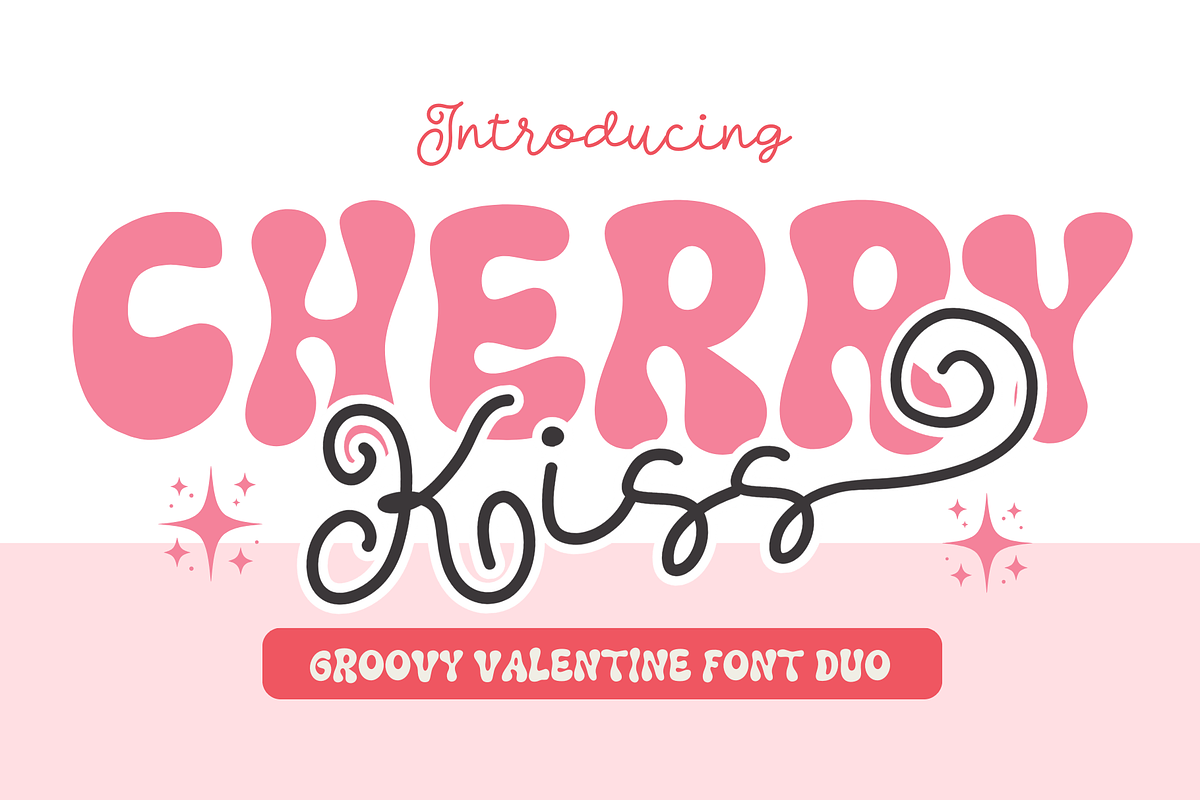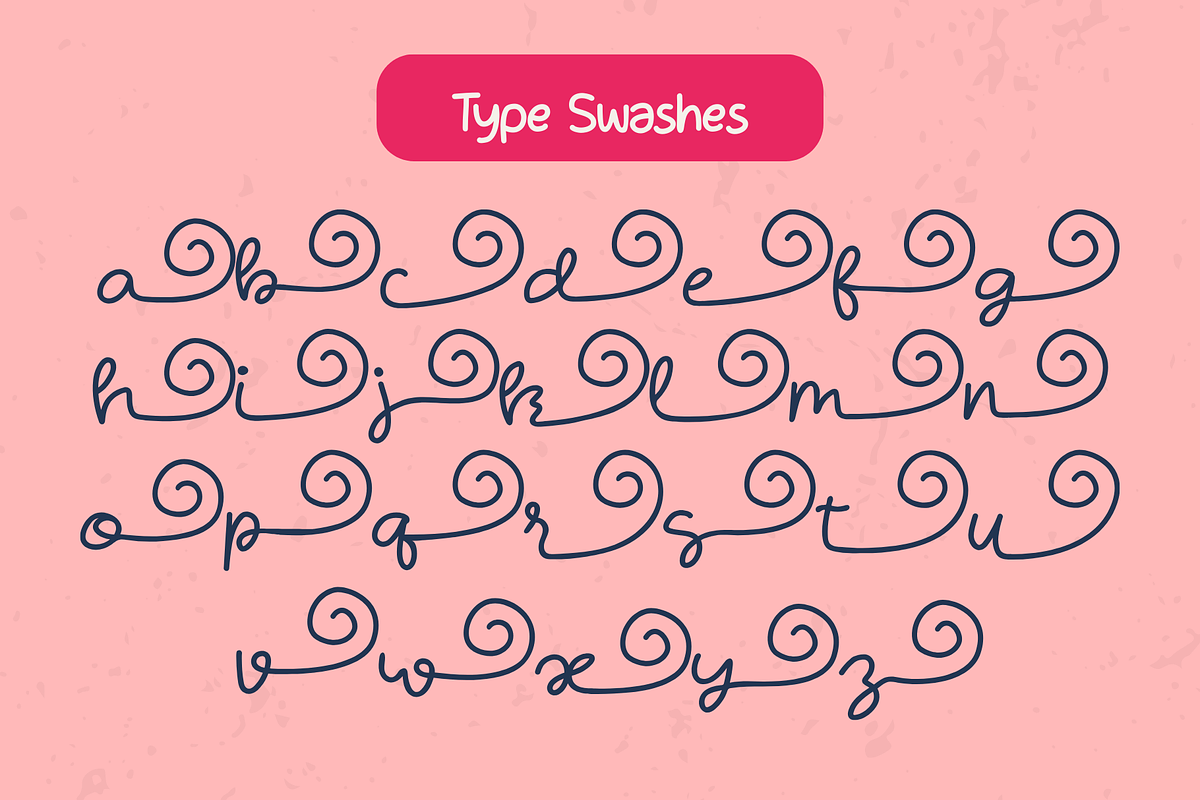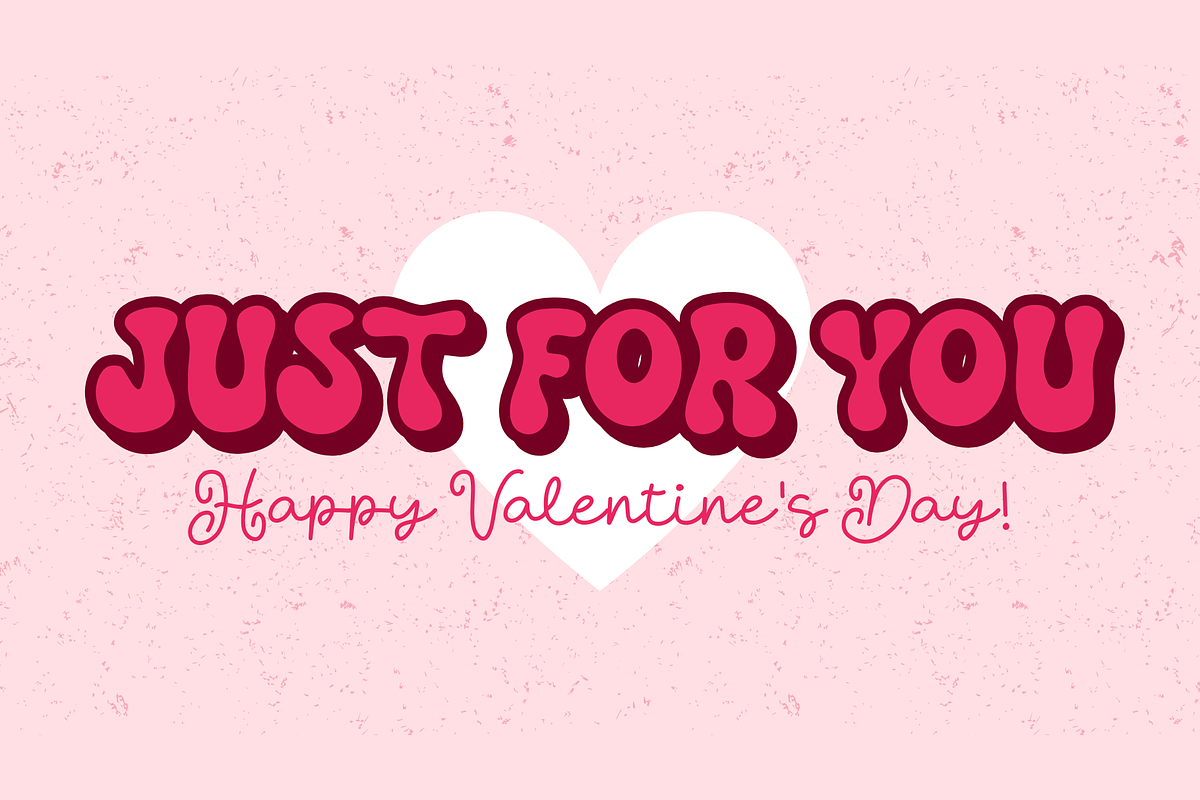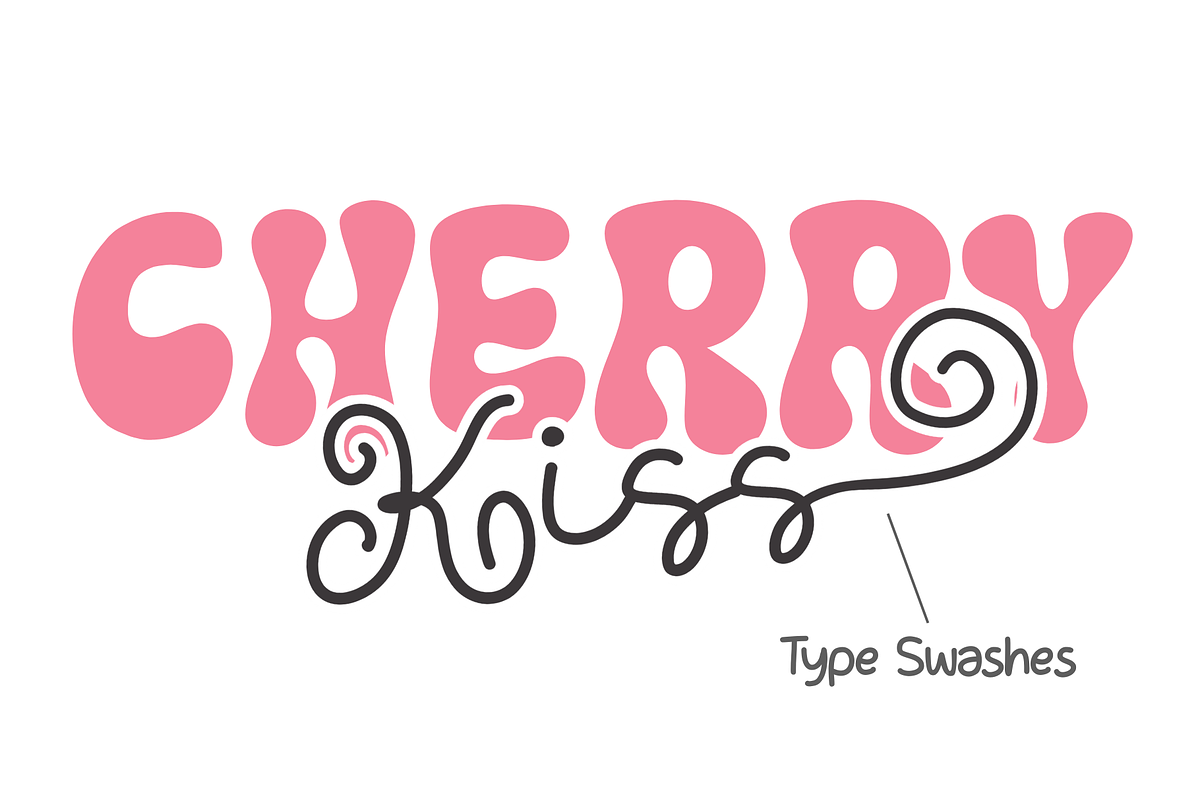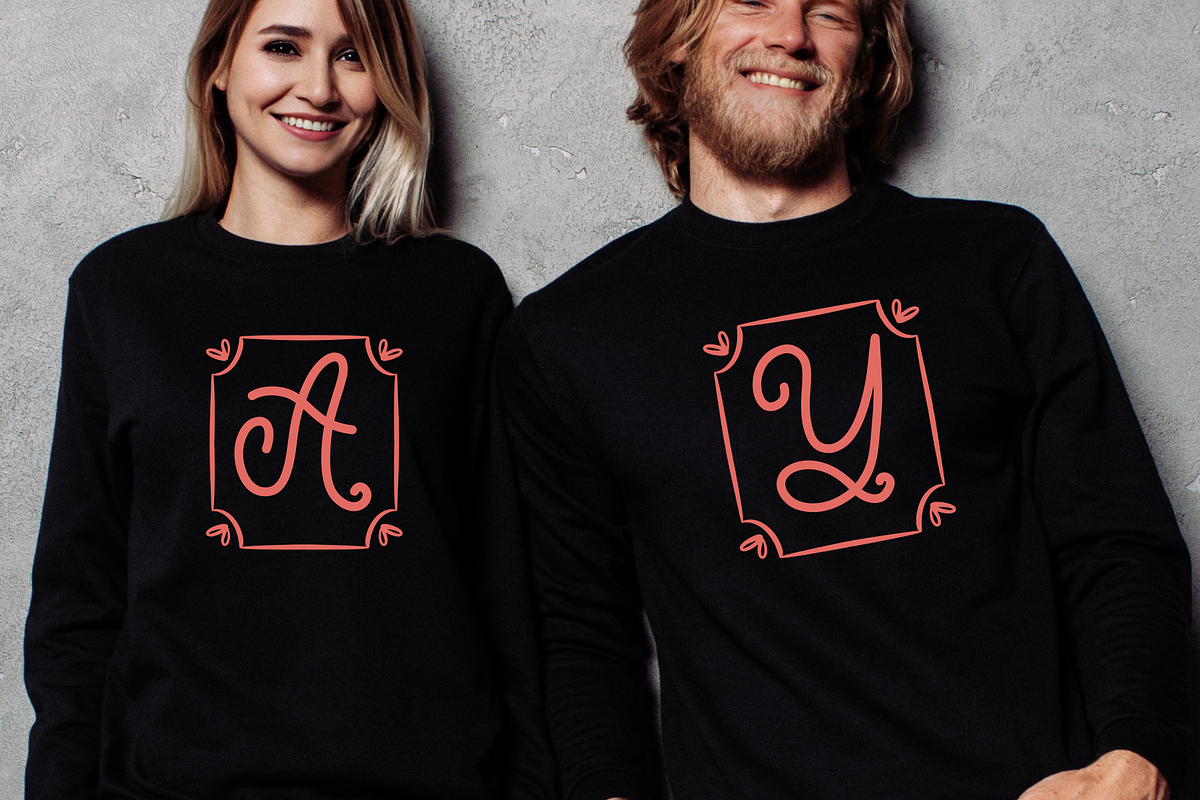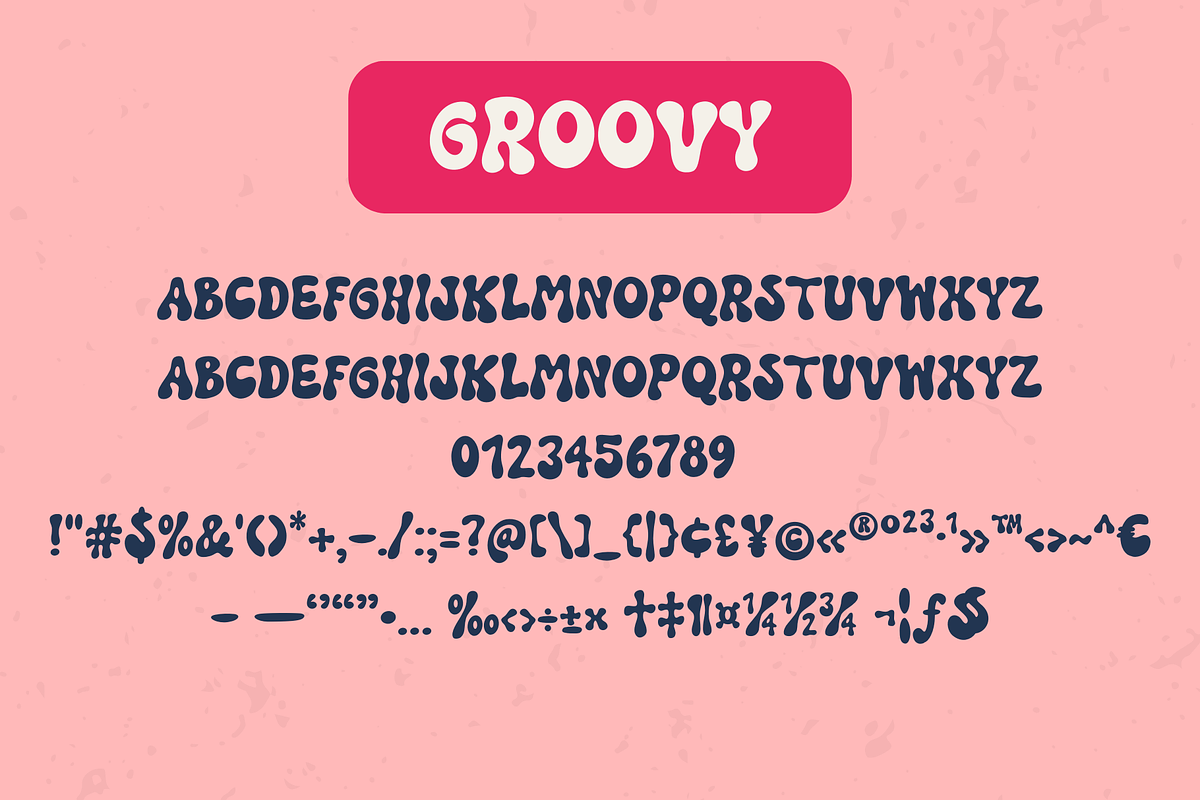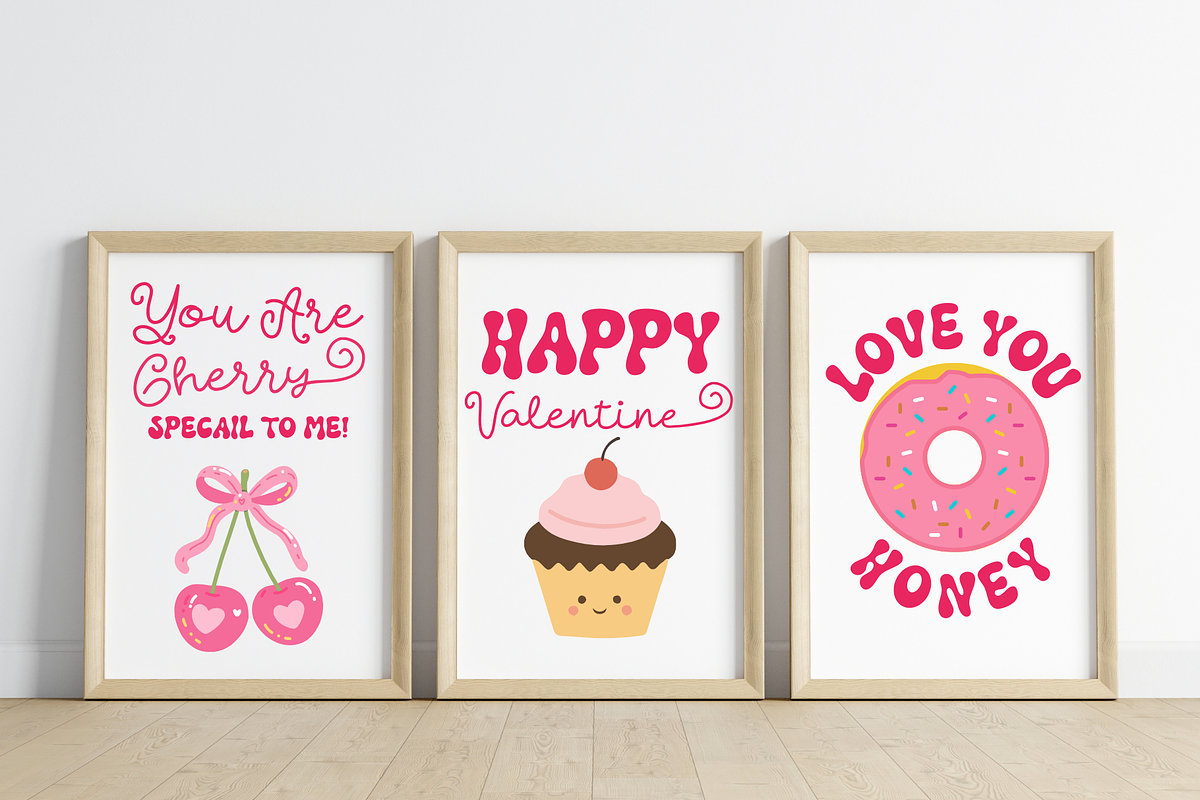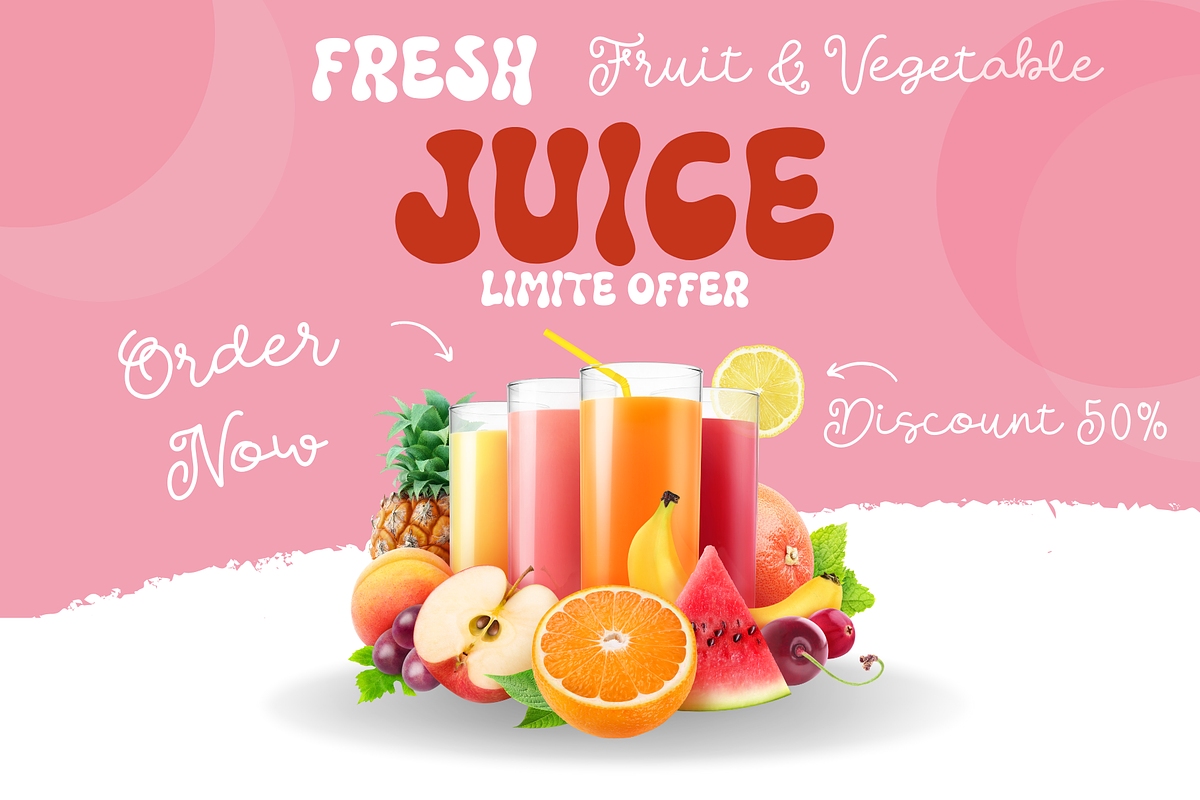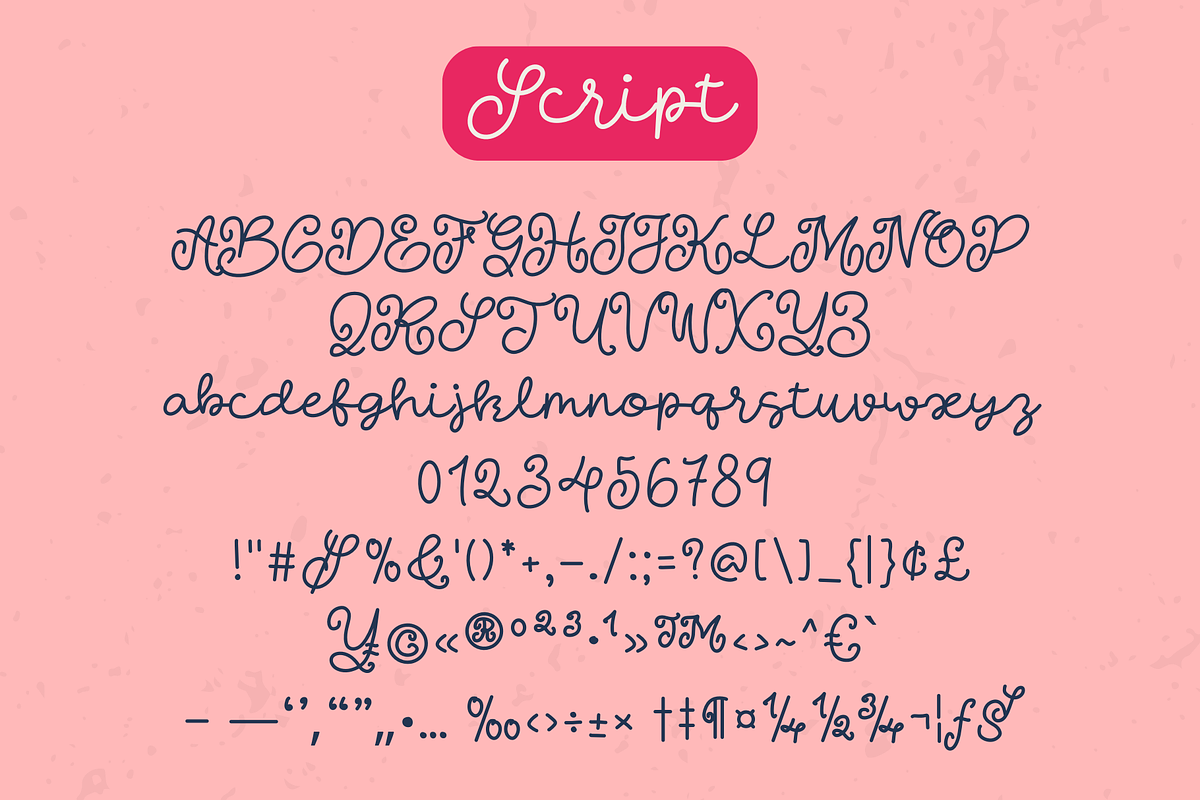
Cherry Kiss is a Valentine font duo
Cherry Kiss is a charming Valentine-themed duo font featuring a sweet handwritten script paired with a playful groovy display font. The contrast between soft, romantic strokes and bold, bubbly letterforms creates a perfect balance of love and fun. Ideal for Valentine’s designs, branding, logos, greeting cards, packaging, social media, invitations, and seasonal promotions. Cherry Kiss brings a joyful, flirty, and heartwarming touch to any creative project.